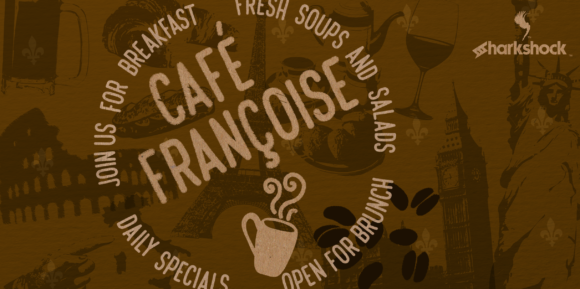
Café Françoise Font: A Charming Display Font for Your Design Needs
Bonjour font fans! Bienvenue au Café Françoise! (pronounced frahn-SWOSS). If you’re looking for a font that captures the essence of a quaint European café, look no further. Café Françoise is a simple, yet charming, display font that will transport you to the streets of London, Paris, Montreal, and Belgium. Inspired by outdoor chalkboard signage showcasing the café’s specials of the day, this font is perfect for designers and crafters seeking a unique and captivating style.
The Inspiration Behind Café Françoise
Café Françoise was born from the idea of recreating the casual, handwritten look of outdoor chalkboard signage found in many European cities. The font’s design is characterized by its irregularities and quirks, giving it a friendly and approachable feel. The letters are designed to resemble those written on a chalkboard, with an aroma as pleasant as a freshly prepared espresso. This font is sure to evoke the warmth and coziness of a traditional café.
Font Features and Variations
The Café Françoise font family has been updated to include both a regular and distressed version. The regular version offers a clean and elegant look, while the distressed version has a more rugged, handwritten appearance with high detail. The distressed version is perfect for designs that require a more rustic or vintage feel. Both versions include a wide range of characters, including Basic Latin, extended Latin, diacritics, punctuation, kerning, and graphics.
Use Cases for Café Françoise
Café Françoise is a versatile font that can be used for a variety of design projects. Here are some ideas to get you started:
- Bakery logo: Create a charming logo for your bakery or café with Café Françoise. The font’s casual, handwritten look is perfect for a brand that wants to evoke a sense of warmth and hospitality.
- Café menu: Design a menu that looks like it was written on a chalkboard with Café Françoise. This font is perfect for listing daily specials, coffee drinks, and pastries.
- Poster design: Use Café Françoise to create eye-catching posters for your business or event. The font’s distressed version is perfect for a vintage or rustic-themed poster.
In conclusion, Café Françoise is a charming display font that is perfect for designers and crafters seeking a unique and captivating style. With its casual, handwritten look and distressed version, this font is versatile and can be used for a variety of design projects. Whether you’re creating a bakery logo, café menu, or poster, Café Françoise is sure to add a touch of European charm to your design.